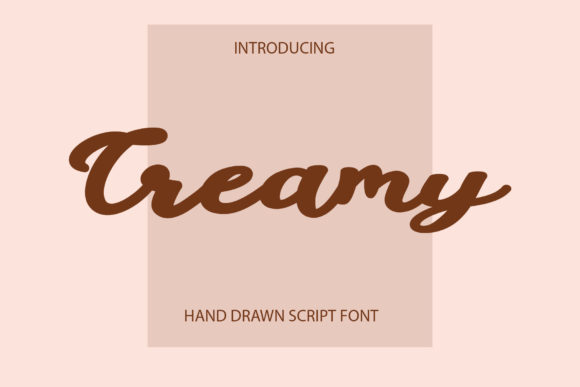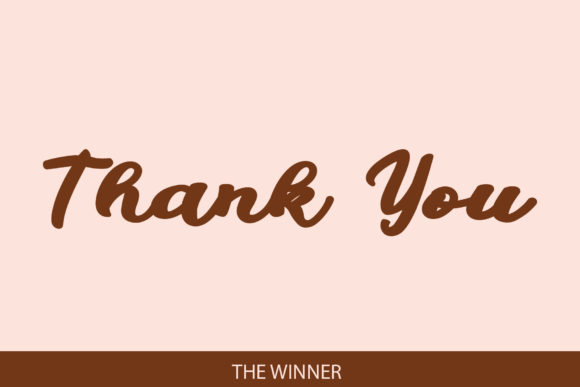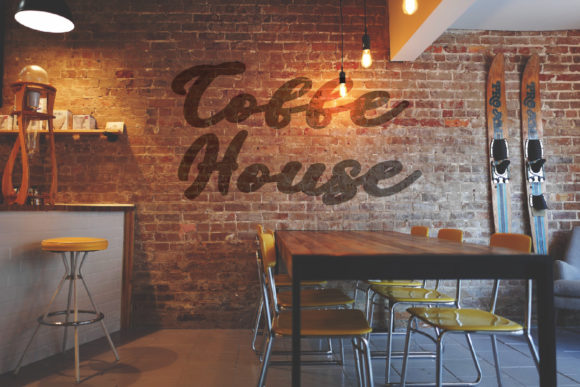
About Creamy Font
Introducing “Creamy,” a delightful paint brushed and cursive script font that adds a touch of artistic flair to your designs. With its unique texture and flowing letterforms, this font is a versatile choice that complements a wide range of design projects. Whether you’re creating logos, branding materials, or simply adding a creative touch to your artwork, “Creamy” is sure to make your designs come alive.
The beauty of “Creamy” lies in its carefully crafted characters. Each letter is meticulously designed with a paint brushed stroke, creating a sense of movement and artistic expression. The flowing nature of the script gives your designs a sense of dynamism and elegance. Whether used for headlines, titles, or as an accent font, “Creamy” adds a touch of creativity and visual interest.
The well-balanced characters of “Creamy” ensure legibility and readability, even at smaller sizes. This makes it a versatile font that can be used for various design purposes, such as packaging, invitations, social media graphics, and more. Whether you’re aiming for a playful, modern, or elegant look, “Creamy” adapts beautifully to suit your design needs.
One of the great advantages of “Creamy” is its ability to add a unique and handcrafted touch to your designs. The paint brushed texture gives your artwork an organic and authentic feel, as if it was created with an actual brush. This adds depth and character to your designs, making them stand out and capture attention.
Furthermore, “Creamy” allows you to unleash your creativity and experiment with various design elements. The versatility of this font allows it to be paired with different typefaces, creating interesting and visually appealing compositions. You can also play with the letter spacing, alternate glyphs, and ligatures to further customize and enhance your designs.
Whether you’re a professional designer or a creative enthusiast, “Creamy” offers endless possibilities to bring your ideas to life. Its unique paint brushed texture and cursive script style make it a captivating choice for any design project. From branding and packaging to social media graphics and artistic illustrations, “Creamy” adds a touch of creativity and personality.
Embrace the artistic charm of “Creamy” and let it transform your designs into captivating works of art. Add this paint brushed and cursive script font to your creative toolkit and watch as your ideas come alive with a touch of creativity and elegance.